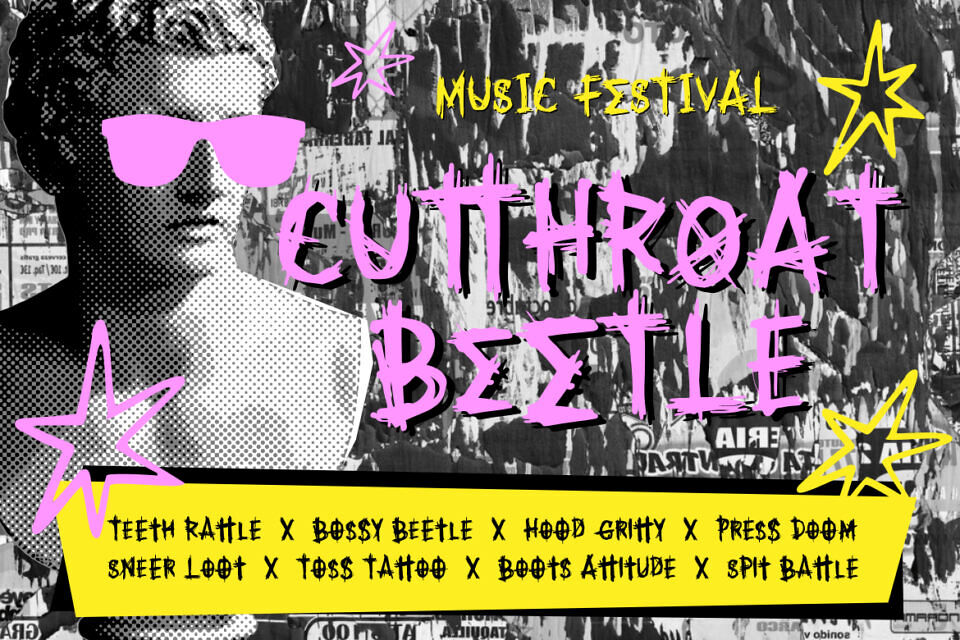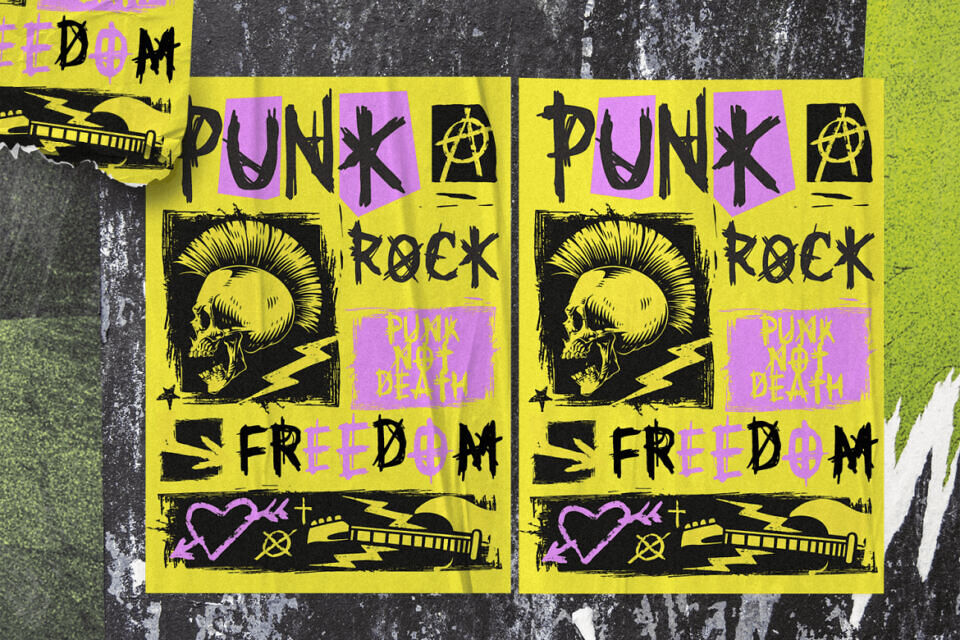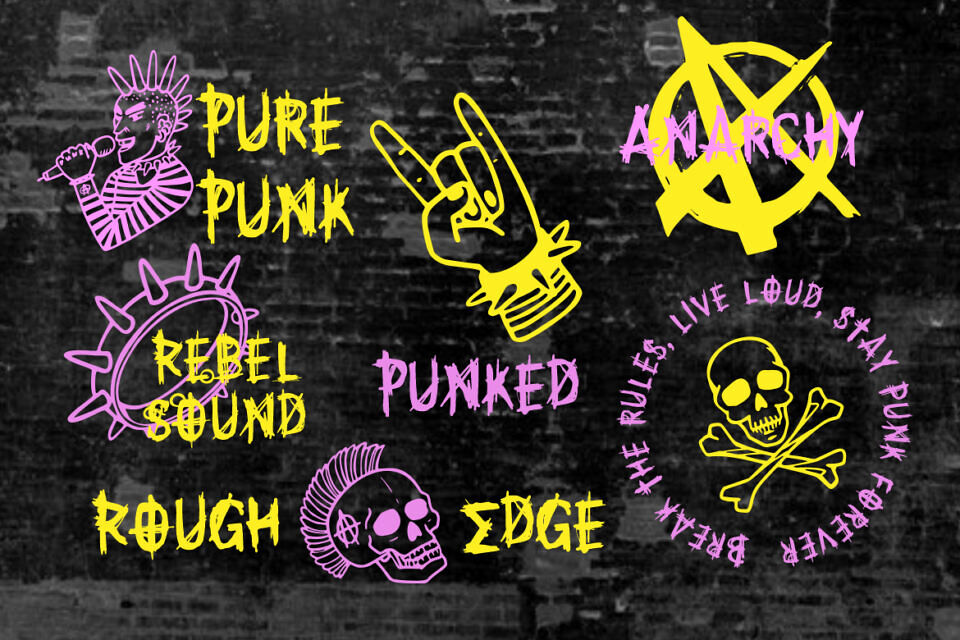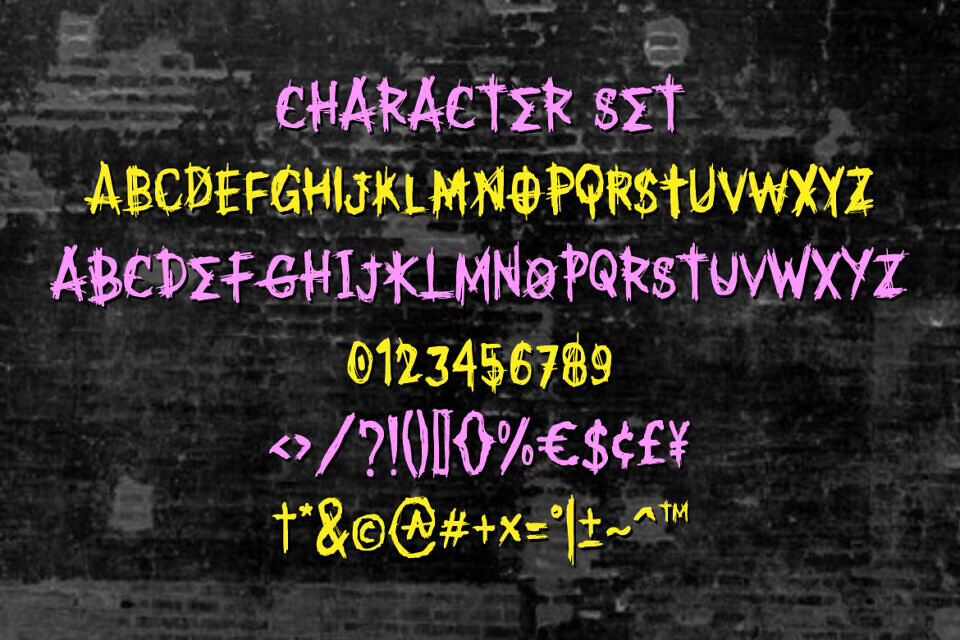
Spooky Punk is an electrifying font that embodies the wild, rebellious spirit of punk rock and urban street art. This unique typeface features chaotic, hand-drawn strokes, exaggerated brush textures, and intentionally messy, unconventional lettering. Each character evokes an energetic, defiant attitude, perfect for projects needing a bold, gritty, and unapologetic visual impact.
Ideal for striking logos, edgy branding, music event posters, and provocative packaging, Spooky Punk’s anarchic aesthetics, with uneven lines and jagged edges, ensure designs stand out. It’s also great for film titles, stickers, and any bold visual statement, resonating with contemporary trends in music, fashion, and urban art to capture attention and express individuality.